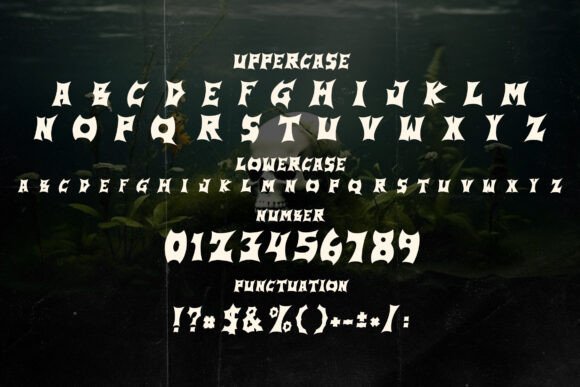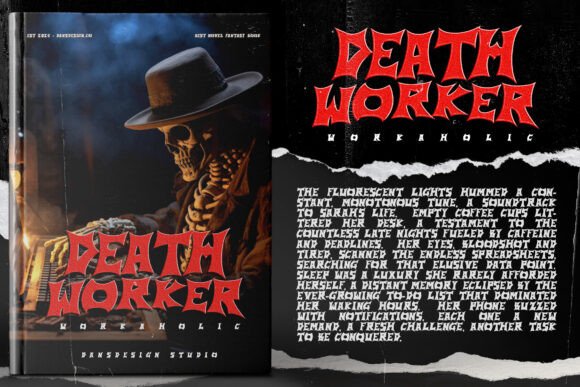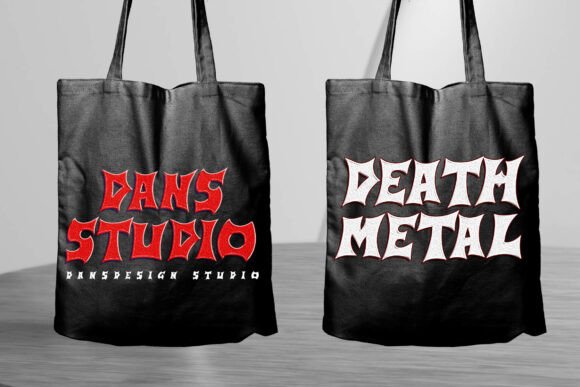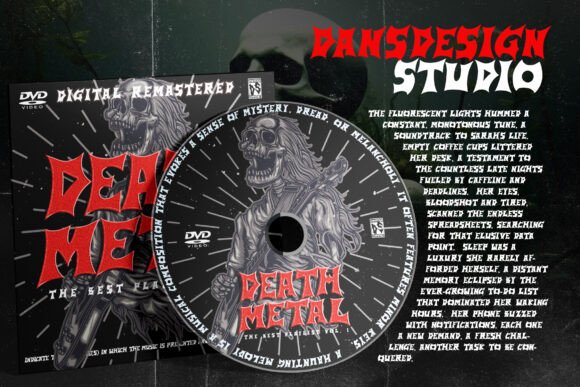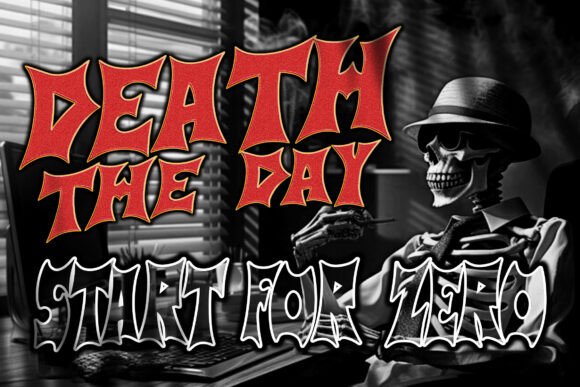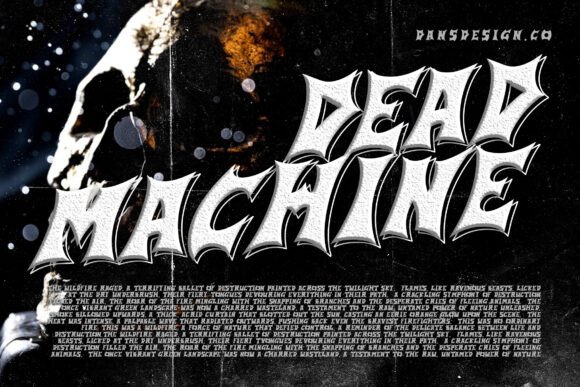
Unleash Your Creativity with Goldfawn Font: The Ultimate Display Font for Bold Designs
Are you a designer or crafter looking for a font that can add an edge to your projects? Look no further than Goldfawn, a bold and edgy display font inspired by heavy metal and gothic aesthetics. With its sharp, jagged letterforms, Goldfawn creates an aggressive and powerful look that’s perfect for making a statement.
The Inspiration Behind Goldfawn
Goldfawn is more than just a font – it’s an attitude. Inspired by the raw energy of heavy metal music and the mysterious allure of gothic culture, Goldfawn embodies the spirit of rebellion and nonconformity. Its design is characterized by sharp, jagged lines and a bold, fearless aesthetic that’s sure to grab attention.
Perfect for Bold Designs
Goldfawn is ideal for designers and crafters who want to create bold, eye-catching designs that make a statement. Whether you’re designing a logo for a heavy metal band, creating a rock album cover, or crafting a horror-themed project, Goldfawn has the perfect blend of aggression and style to bring your vision to life.
Use Cases for Goldfawn
So, what can you create with Goldfawn? The possibilities are endless! Here are some ideas to get you started:
- Band Logos: Create a bold, eye-catching logo for a heavy metal or hard rock band that’s sure to stand out.
- Rock Album Covers: Design a striking album cover that captures the energy and attitude of the music.
- Horror Themes: Add a touch of darkness and foreboding to your horror-themed projects with Goldfawn’s jagged, unsettling letterforms.
- Gaming Designs: Create bold, attention-grabbing graphics for video games, esports teams, or gaming accessories.
- Rebellious Branding: Use Goldfawn to create a bold, edgy brand identity that’s sure to appeal to fans of heavy metal and gothic culture.
What Makes Goldfawn Special?
So, what sets Goldfawn apart from other display fonts? Here are a few key features that make it stand out:
- Electrifying Energy: Goldfawn has a dynamic, energetic feel that’s perfect for creating bold, attention-grabbing designs.
- Versatility: Whether you’re designing a logo, album cover, or horror-themed project, Goldfawn is versatile enough to adapt to any style or theme.
- High-Impact Letterforms: Goldfawn’s sharp, jagged letterforms are designed to make a statement and grab attention.
Tips for Using Goldfawn
Here are a few tips for getting the most out of Goldfawn:
- Use it boldly: Goldfawn is designed to make a statement, so don’t be afraid to use it in bold, eye-catching ways.
- Experiment with colors: Goldfawn looks great in bold, bright colors, so don’t be afraid to experiment and find the perfect color scheme for your project.
- Pair it with contrasting fonts: For maximum impact, pair Goldfawn with contrasting fonts that provide a clear visual contrast.
Goldfawn is more than just a font – it’s a statement. With its bold, edgy design and electrifying energy, it’s the perfect choice for designers and crafters who want to create bold, attention-grabbing designs that make a statement. Whether you’re designing a logo, album cover, or horror-themed project, Goldfawn has the perfect blend of aggression and style to bring your vision to life. So why wait? Unleash your creativity with Goldfawn Font today!